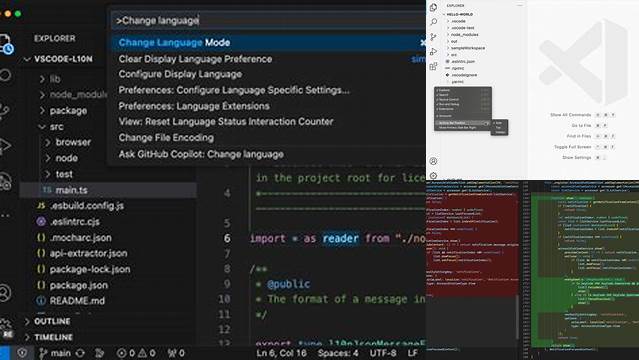
Best VS Code Fonts: Ultimate Guide To Customization
Introduction: The Importance of Fonts in VS Code
Fonts, guys, are way more important than you might think, especially when you're spending hours coding in Visual Studio Code (VS Code). The right font can seriously boost your coding experience, making it easier to read, less tiring on the eyes, and even help you spot those sneaky little bugs. We’re talking about finding that sweet spot where clarity meets style, and trust me, it makes a world of difference. When you're staring at lines of code all day, the font becomes your best friend or your worst enemy. A good font enhances readability, reducing eye strain and making the overall coding process more enjoyable. Think of it like this: the right font is like having a perfectly optimized workspace – it just feels right. The wrong font, on the other hand, can lead to fatigue and errors, turning coding into a chore. So, whether you're a seasoned developer or just starting, taking the time to choose the right font is an investment in your productivity and well-being. And let’s be real, who doesn’t want their code to look good while they’re at it? Customizing your VS Code environment, starting with the font, is a simple yet powerful way to make your coding space truly yours. It’s about more than just aesthetics; it’s about creating an environment where you feel comfortable and focused. So, let's dive into the world of VS Code fonts and discover how to make your code look its best.
Understanding Font Settings in VS Code
Alright, let's get into the nitty-gritty of font settings in VS Code. It's actually super straightforward, but knowing where to look is half the battle. VS Code lets you tweak fonts globally (for all projects) or on a project-specific basis. This flexibility is awesome because you might want a different font for, say, a Python project versus a JavaScript one. Now, where do you find these settings? Just hit Ctrl + Shift + P (or Cmd + Shift + P on a Mac) to open the Command Palette, then type “Settings” and choose “Preferences: Open Settings (UI)” or “Preferences: Open Settings (JSON)”. The UI is great for a visual approach, while the JSON file gives you more granular control. Both roads lead to font customization glory. In the Settings UI, you can simply search for "font" and you’ll see options like “Editor: Font Family”, “Editor: Font Size”, and “Editor: Font Weight”. These are the big three when it comes to font customization. The “Font Family” setting is where you specify the fonts you want to use, and you can list multiple fonts as fallbacks in case the first one isn’t available on your system. “Font Size” is pretty self-explanatory – adjust it to your liking for optimal readability. And “Font Weight” lets you control the boldness of the font, which can be useful for differentiating code elements. If you're diving into the JSON settings file (settings.json), you’ll be adding or modifying settings like "editor.fontFamily", "editor.fontSize", and "editor.fontWeight". This method gives you precise control over your font settings, allowing you to fine-tune your coding environment to your exact preferences. Remember, the goal here is to create a comfortable and efficient coding experience, so don’t be afraid to experiment with different font settings until you find the perfect fit. Whether you prefer the visual ease of the Settings UI or the granular control of the JSON file, VS Code makes it simple to tailor your fonts to your needs.
Top Font Recommendations for VS Code
Okay, so you're ready to jazz up your VS Code with some fresh fonts, but where do you even start? There's a whole universe of fonts out there, but don't worry, I've got your back. Let's talk about some top-notch fonts that are perfect for coding. First up, we've got Fira Code. This font is a superstar in the coding world because it has these things called ligatures. Ligatures are like special characters that combine two or more characters into one, making your code look cleaner and more readable. For example, != might turn into a single ≠symbol, which is super cool and helps your brain process code faster. Then there's Monaco, a classic that’s been around for ages and is still a solid choice. It's a clean, monospaced font (meaning each character takes up the same amount of horizontal space), which is crucial for code alignment. Source Code Pro is another fantastic option from Adobe. It's specifically designed for coding, so it's super legible and easy on the eyes, even after hours of coding. If you're looking for something a bit more modern, check out JetBrains Mono. This font is designed with the needs of developers in mind, offering excellent readability and a unique style. It's quickly becoming a favorite among coders. And let's not forget Consolas, a font that comes standard with Windows. It's a reliable and clear font that works well for coding. Each of these fonts brings something unique to the table, so it really comes down to personal preference. Fira Code's ligatures can be a game-changer for readability, while Monaco offers a timeless, clean look. Source Code Pro is a workhorse designed for coding, JetBrains Mono brings a modern touch, and Consolas is a dependable choice. Try out a few and see which one clicks with you. Remember, the best font is the one that makes you the most comfortable and productive. Experiment, have fun, and find your perfect coding font!
Step-by-Step Guide to Changing Fonts in VS Code
Customizing Font Size, Weight, and Other Options
Okay, you've got your font all set up in VS Code, but the customization fun doesn't stop there! You can also tweak the font size, weight (that's the boldness, guys), and a bunch of other options to really dial in your perfect coding view. Let’s dive into how to make these adjustments. First up, font size. This one’s pretty straightforward, but it can make a huge difference in readability. If you're finding yourself squinting at your code, bumping up the font size is a no-brainer. To change the font size, you can either use the Settings UI or dive into the settings.json file. In the Settings UI (remember, Ctrl + Shift + P or Cmd + Shift + P, then type “Settings”), search for “Editor: Font Size”. You'll see a slider or a text box where you can enter the font size in pixels. Play around with it until you find a size that feels comfortable for your eyes. If you're rolling with the settings.json file, you'll be looking for the "editor.fontSize" setting. Just change the number value to your desired font size. For example, "editor.fontSize": 14 would set the font size to 14 pixels. Next, let's talk about font weight. This controls how bold or light the font appears. A bolder font can be great for making code stand out, while a lighter font can give a more subtle look. In the Settings UI, search for “Editor: Font Weight”. You'll see a dropdown menu with options like “normal”, “bold”, “lighter”, and numeric values like “100”, “200”, …, “900”. Experiment with these options to see what works best for you. In the settings.json file, you'll be modifying the "editor.fontWeight" setting. You can use the same string values (“normal”, “bold”, etc.) or the numeric values. For example, "editor.fontWeight": "bold" will make your font bold. But wait, there's more! VS Code also lets you customize other font-related options, like line height and letter spacing. These can fine-tune the overall readability and appearance of your code. You can find these settings in the Settings UI by searching for “Editor: Line Height” and “Editor: Letter Spacing”. In the settings.json file, they're "editor.lineHeight" and "editor.letterSpacing", respectively. Line height controls the vertical space between lines of code, while letter spacing adjusts the horizontal space between characters. By tweaking these settings, you can create a coding environment that's perfectly tailored to your preferences. So go ahead, experiment, and make your code look its absolute best!
Troubleshooting Common Font Issues in VS Code
Okay, so you've tweaked your font settings in VS Code, but things aren't looking quite right? Don't worry, it happens to the best of us. Let's troubleshoot some common font issues and get your code looking sharp again. One of the most frequent problems is that the font you've selected just isn't showing up in VS Code. This usually means one of two things: either the font isn't installed correctly on your system, or you've misspelled the font name in your settings.json file. First, double-check that the font is actually installed. Go to your system's font settings (usually in the Control Panel on Windows or Font Book on macOS) and make sure the font is listed there. If it's not, you'll need to install it. If the font is installed, the next step is to verify that you've typed the font name correctly in your settings.json file. Font names are case-sensitive, so “Fira Code” is different from “fira code”. Open your settings.json file (remember, Ctrl + Shift + P or Cmd + Shift + P, then type “Settings” and choose “Preferences: Open Settings (JSON)”) and double-check the "editor.fontFamily" setting. Make sure the font name matches exactly the name in your system's font list. Another common issue is that the font looks blurry or pixelated. This can happen if the font size is set too small or too large, or if the font itself isn't optimized for coding. Try adjusting the font size to see if that helps. A good starting point is somewhere between 12 and 16 pixels, but it really depends on your screen resolution and personal preference. If the font still looks blurry, you might want to try a different font that's specifically designed for coding. Fonts like Fira Code, Source Code Pro, and JetBrains Mono are all excellent choices for code readability. Sometimes, you might find that ligatures aren't working as expected. Ligatures, as we discussed earlier, are special characters that combine two or more characters into one, like != becoming ≠. If your font supports ligatures but they're not showing up, you'll need to enable font ligatures in VS Code. In your settings.json file, add the setting "editor.fontLigatures": true. Save the file, and VS Code should start rendering ligatures. If you're still having trouble, try restarting VS Code. Sometimes, a simple restart can fix weird font issues. And if all else fails, don't hesitate to ask for help! There are tons of online communities and forums where you can get advice from other developers. So don't get discouraged, you'll get your fonts looking perfect in no time!
Conclusion: Making VS Code Your Own with the Perfect Font
So, we've journeyed through the world of VS Code fonts, guys! We've talked about why fonts matter, how to change them, some top recommendations, and even how to troubleshoot common issues. The big takeaway here is that choosing the right font is a super important step in making VS Code your own. It's about creating a coding environment that feels comfortable, efficient, and even a little bit stylish. Think about it: you're spending hours staring at your code, so why not make it look as good as possible? A well-chosen font can reduce eye strain, improve readability, and just make the whole coding experience more enjoyable. It's like giving your eyes a mini-vacation every time you sit down to code. And let's be real, when you're in the zone, the last thing you want is a font that's distracting or hard to read. Customizing your fonts is also about expressing your personal style. VS Code is a powerful tool, but it's also a blank canvas. By tweaking the fonts, sizes, weights, and other options, you're putting your own stamp on your coding environment. It's a way of saying, “This is my space, and I'm going to make it work for me.” Plus, let's not forget the productivity boost. When you can read your code clearly and comfortably, you're less likely to make mistakes and more likely to stay focused. It's a simple change that can have a huge impact on your workflow. So, what are you waiting for? Dive into those font settings, experiment with different options, and find the perfect font for your VS Code setup. Whether you're a fan of the classic Monaco, the ligature-rich Fira Code, or the modern JetBrains Mono, there's a font out there that's just right for you. And remember, it's okay to change your mind! If a font isn't working out, switch it up. The goal is to create a coding environment that inspires you, supports you, and makes you excited to write code. So go ahead, make VS Code your own, one font at a time!